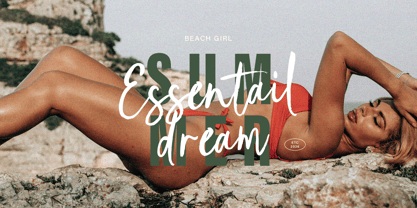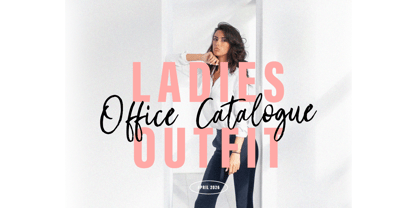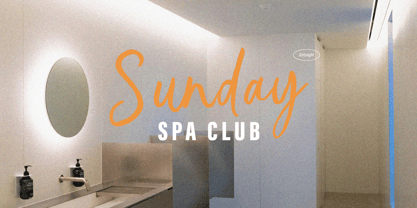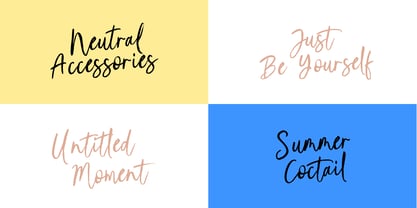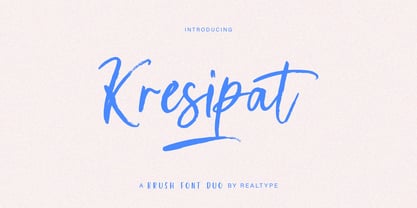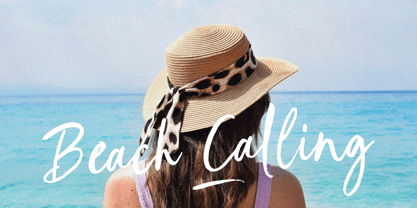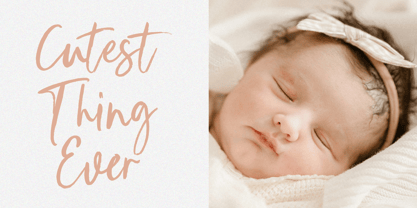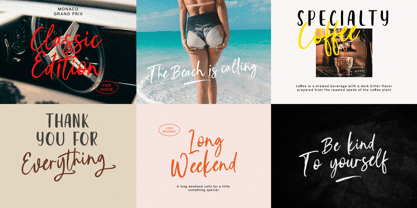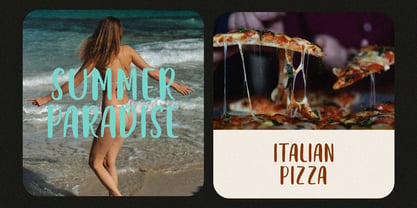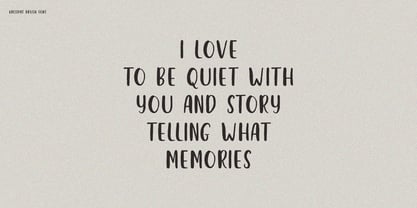
Kresipat Brush
by Realtype
The Kresipat Brush Font Family was designed by Alam Syahril and published by Realtype. Kresipat Brush contains 2 styles and family package options. More about this family
Meet Kresipat Font Duo, a harmonious blend of sans Brush and script Brush styles that creates a balanced and fresh look. Kresipat Font Duo comes with multiple styles in both sans and script. Kresipat Brush Font Duo is suitable for any modern design such as for cards, invitations, announcements, seasonal designs, social media promotions, web design, branding and logo styling and more.
Designers: Alam Syahril
Foundry: Realtype